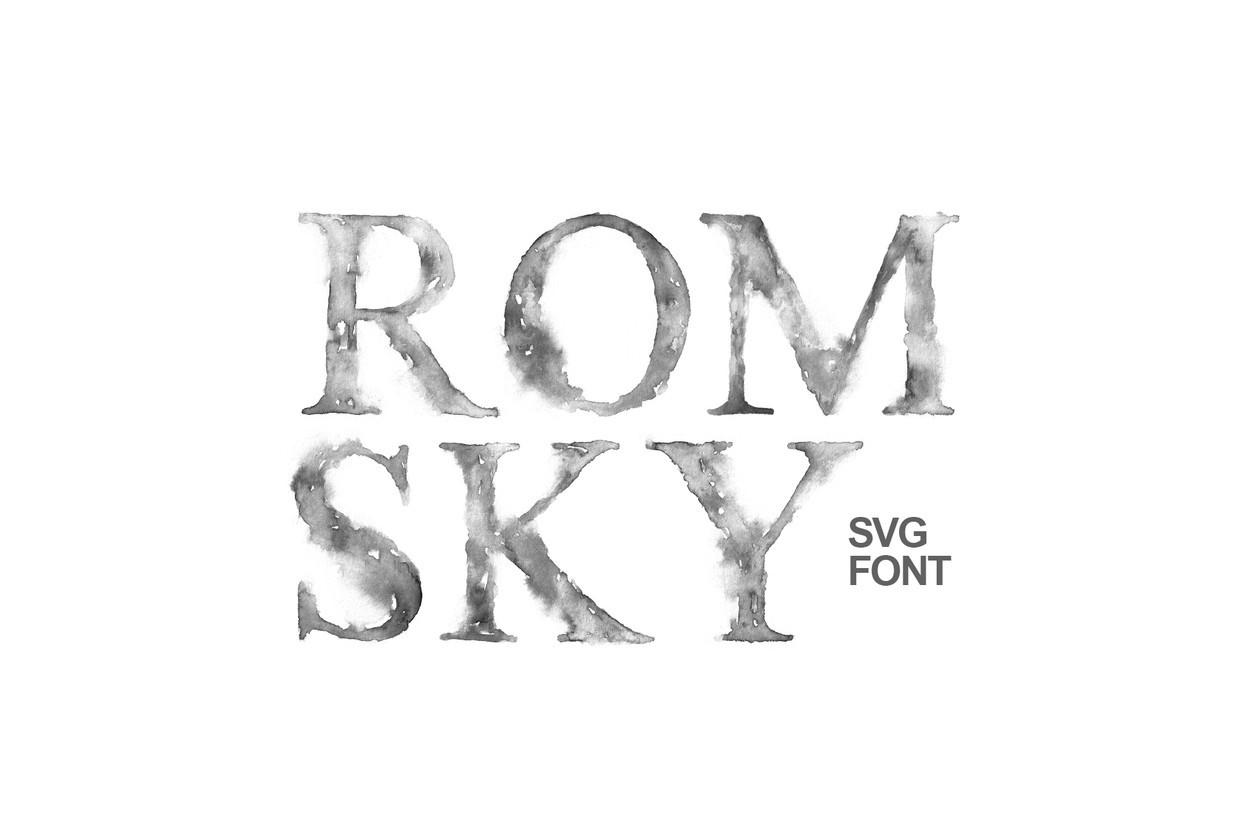
Romsky Watercolor Font Description
Romsky is a creative and artistic SVG font carefully designed with an authentic and natural feel. Faded in some parts and with different transparencies in others, this font looks impressive, unique, natural, and just perfect for artistic projects!